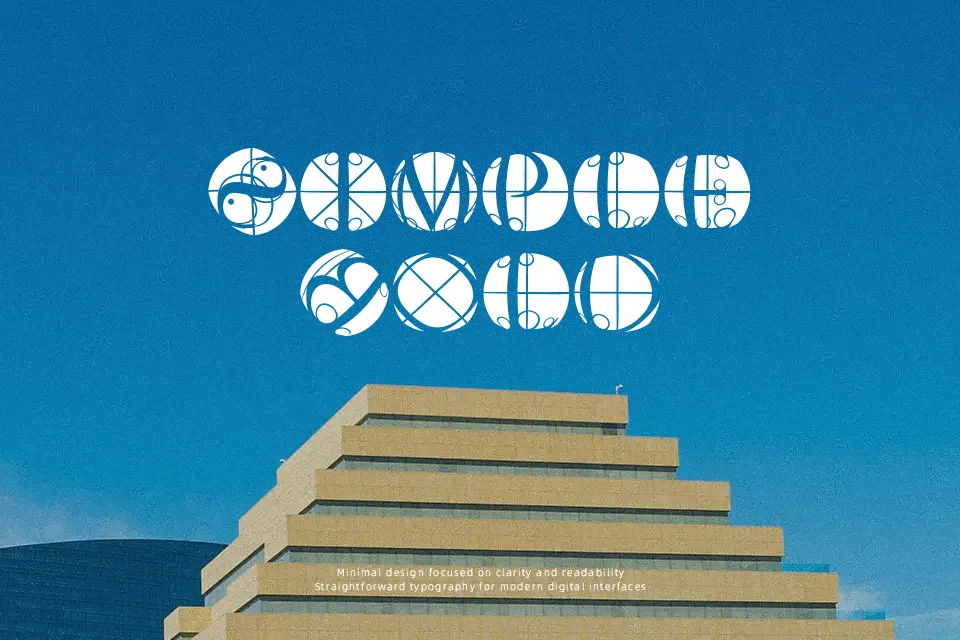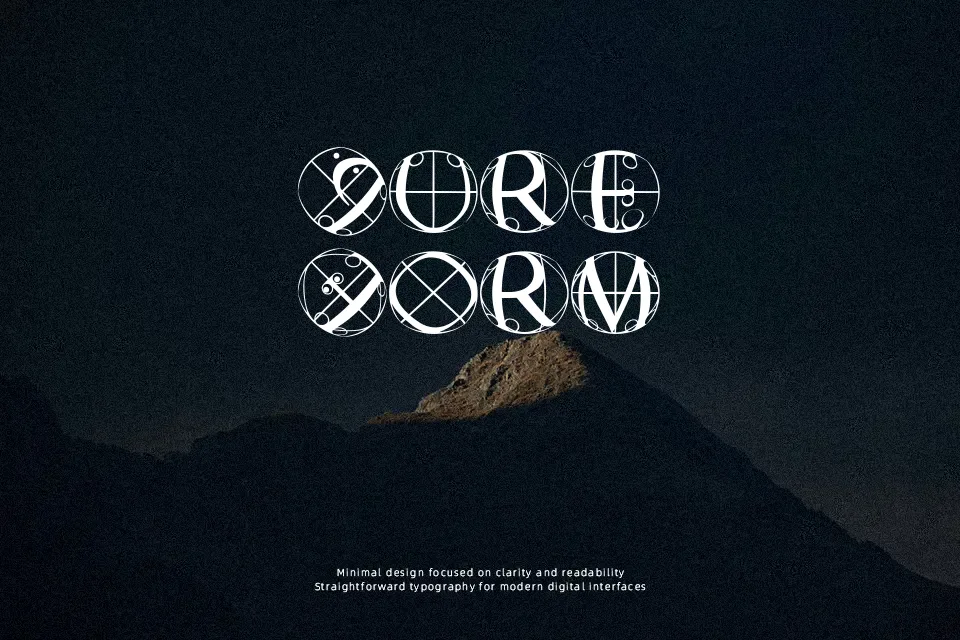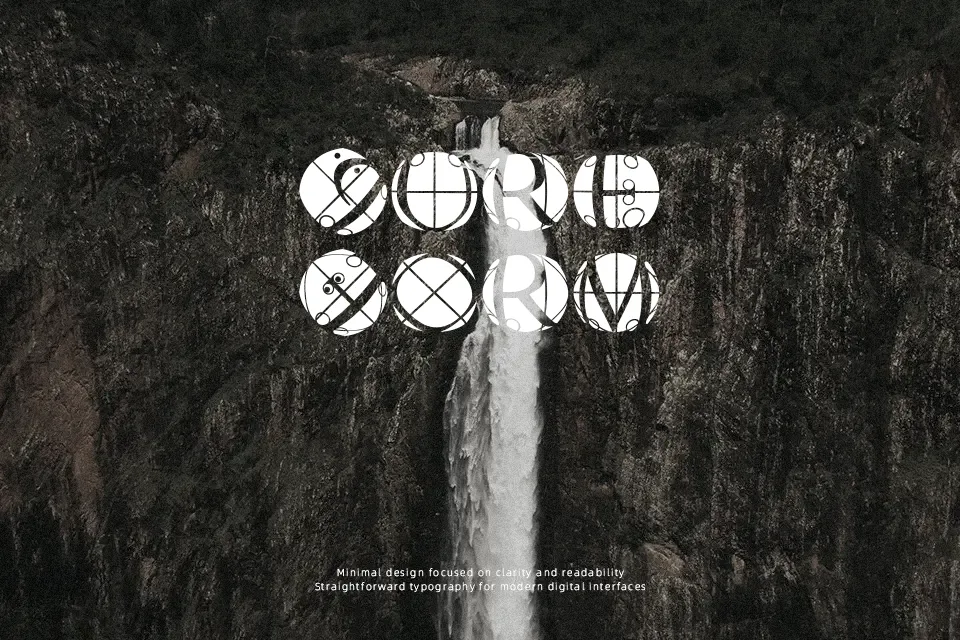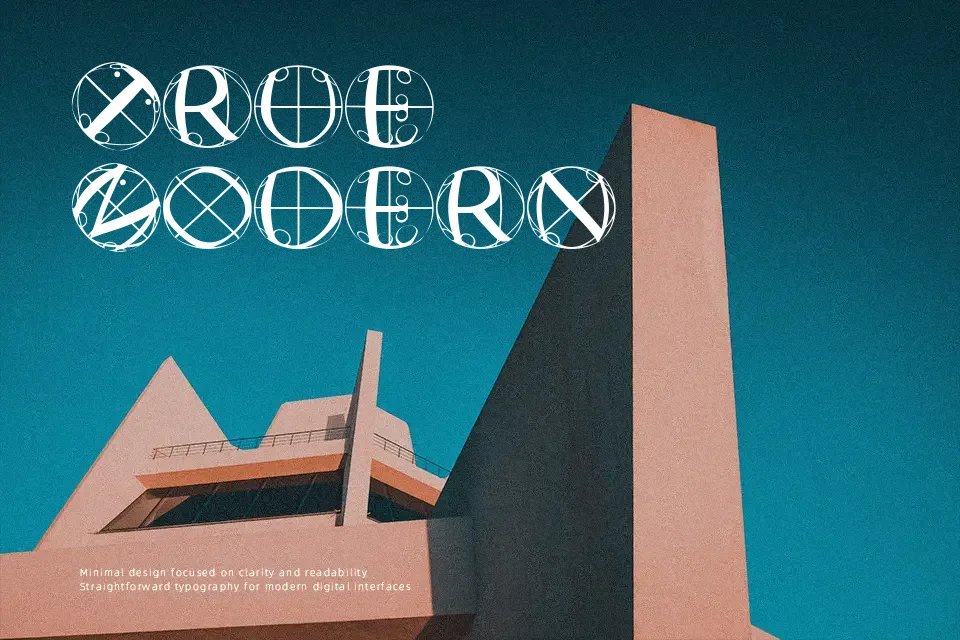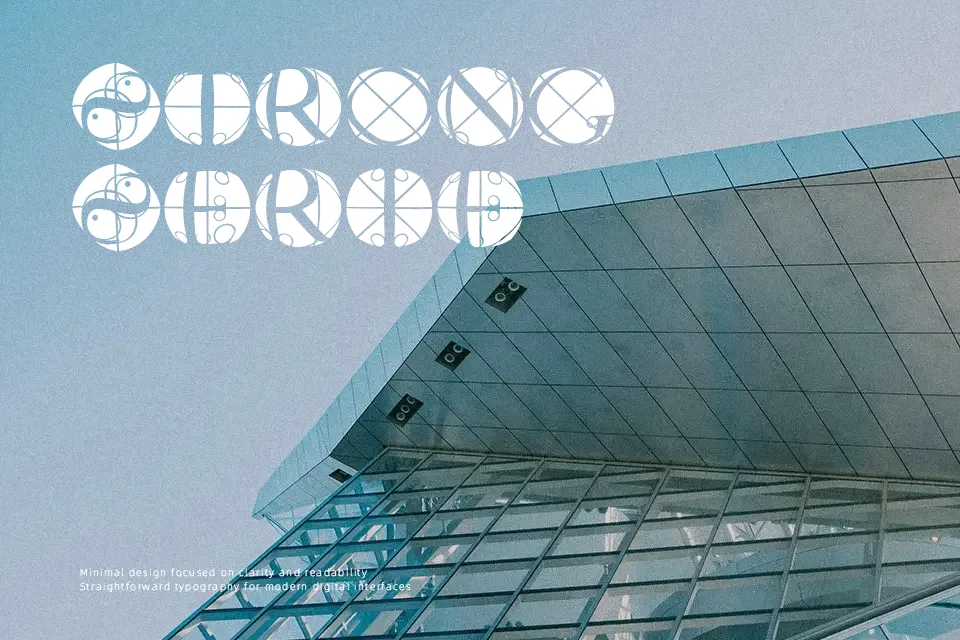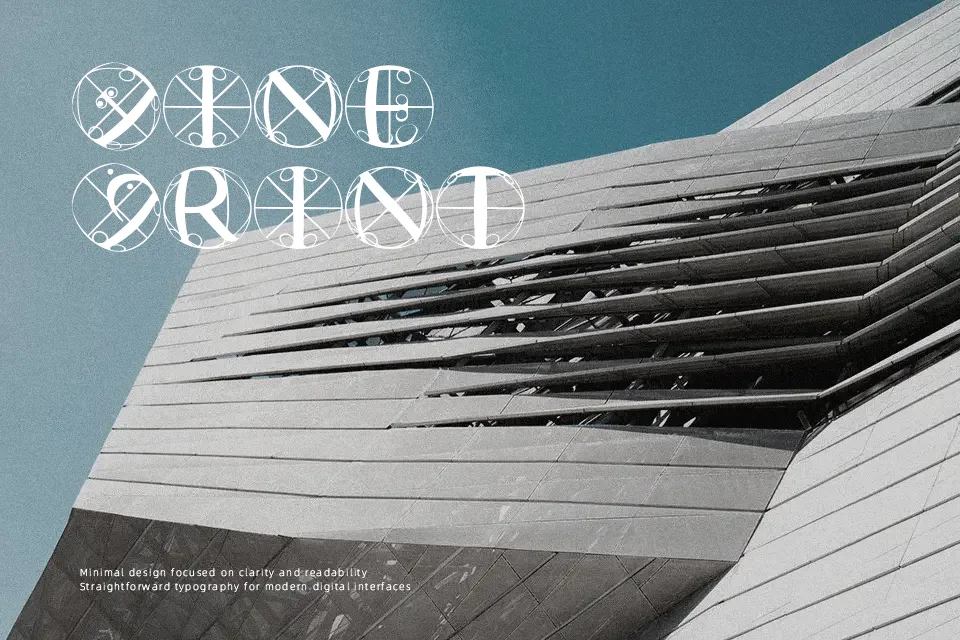
Rodau Buttons Font
Rodau Buttons Font immediately captures attention with its highly structured design, where each character is confined inside a distinct grid-like or rounded container. The even stroke weight and enclosed layout produce a unique badge-like appearance throughout the alphabet. Since the glyphs sit within these pronounced boundaries, the spacing remains inherently predictable, although the overall text blocks feel quite dense. This repetitive geometric framework makes the typeface particularly effective for striking headlines and experimental graphic layouts. However, the heavy structural borders can easily obscure the underlying letterforms at smaller scales, drastically lowering readability and rendering the design impractical for continuous paragraphs or lengthy editorial reading.
Best For: retro interface elements, thematic event posters, custom packaging graphics, experimental headline displays
Not Ideal For: lengthy editorial reading, small technical labels, continuous body paragraphs, dense data tables
Perfect for gaming, headline, and packaging, with a artistic and decorative style.